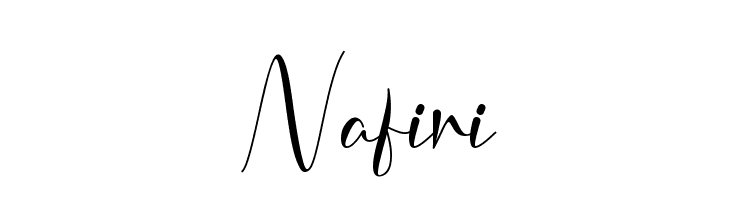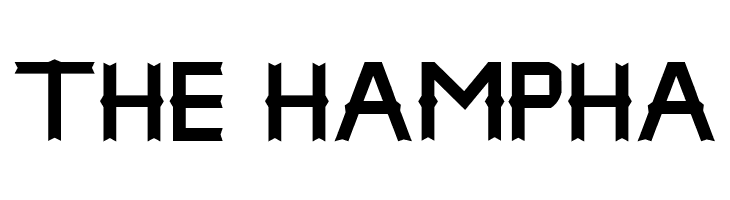
A modern, elegant handwritten font with fluid, continuous strokes.
A dynamic brush script font with fluid, cursive strokes and a handwritten appearance.
A futuristic, geometric font with clean lines and angular shapes.
A modern, italic font with a sleek and dynamic style.
A modern, geometric sans-serif font with uniform stroke widths and clear characters.
A playful handwritten font with a casual and friendly style.
A bold, modern font with vintage elements and strong character presence.
A bold, modern serif font with sharp, angular serifs and a strong geometric style.
A bold, high-contrast serif font with a strong, authoritative presence.